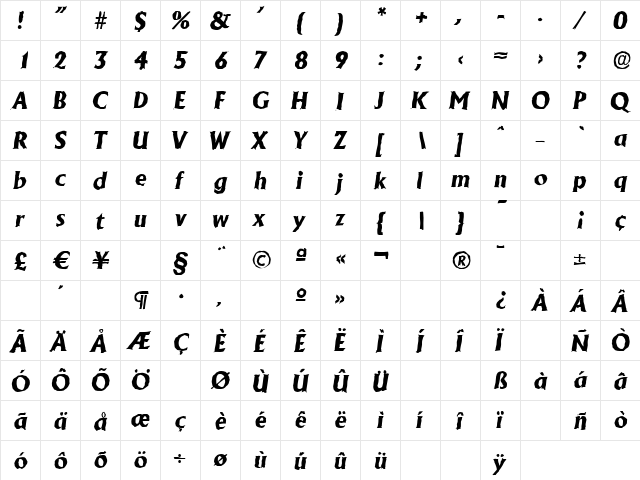
JacobBeckerAntique-ExtraBold Italic
Design Context for JacobBeckerAntique-ExtraBold Typeface
JacobBeckerAntique-ExtraBold has the warm character of retro typography — evoking diners, record sleeves, and the golden age of print advertising. Its italic angle brings a sense of urgency and motion to the letterforms. Its bold stroke weight gives it real presence on the page.
Font Pairing: Combine JacobBeckerAntique-ExtraBold with a simple slab or neutral sans — period-accurate companions reinforce the vintage feel without competing for attention.
Pro Tip: Use JacobBeckerAntique-ExtraBold for headlines and pull quotes rather than body copy — its personality is best appreciated in short, focused bursts.